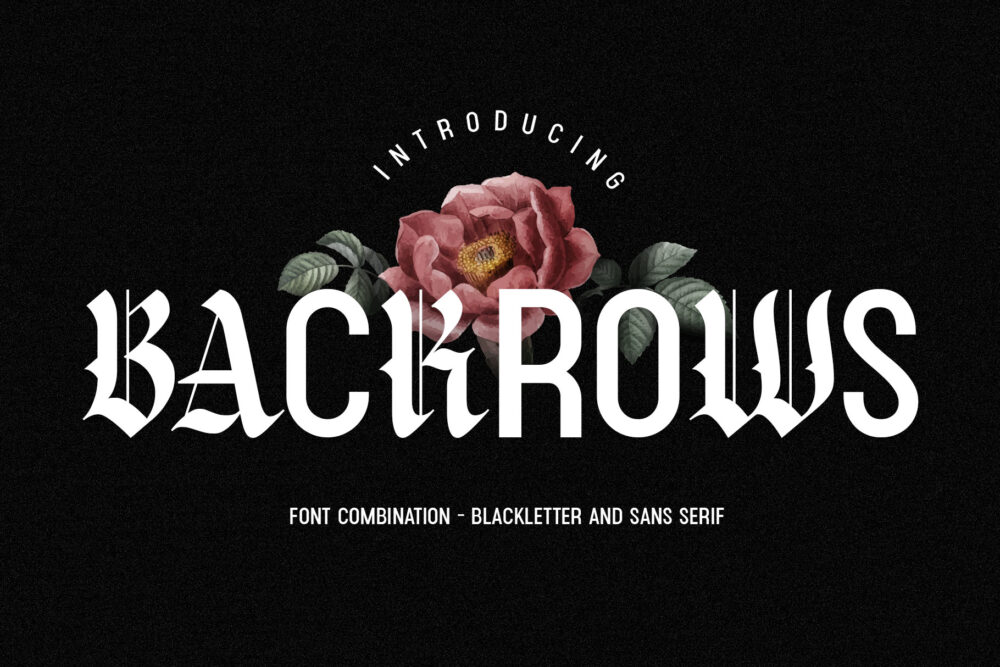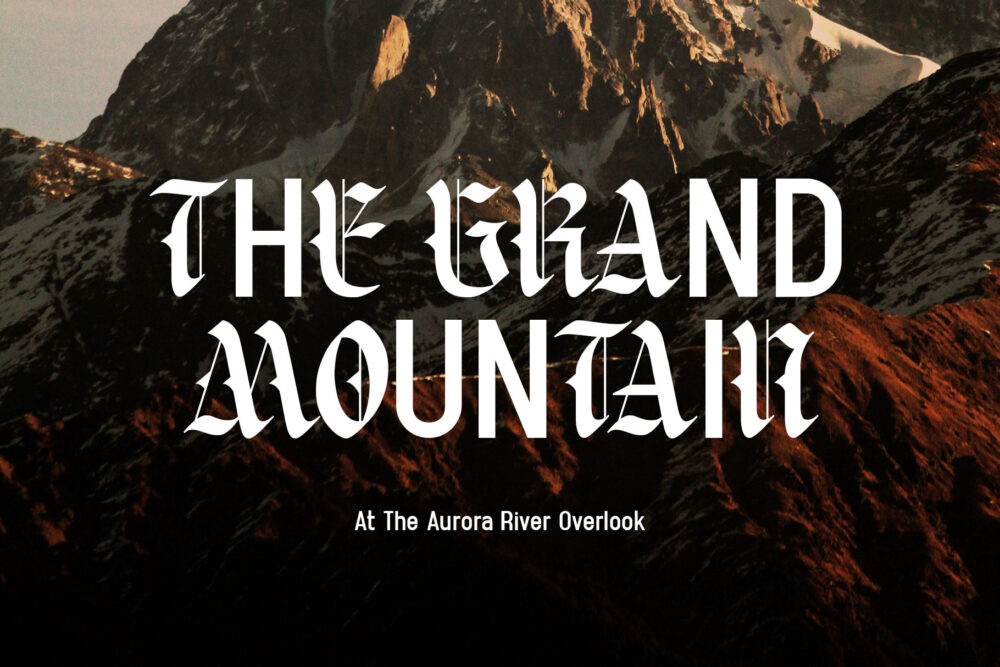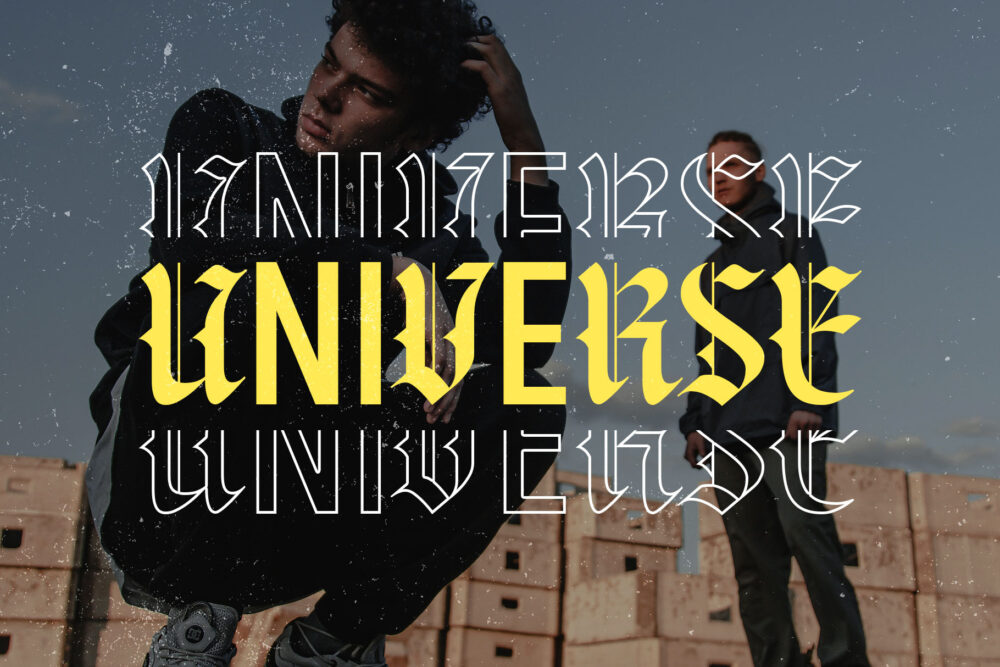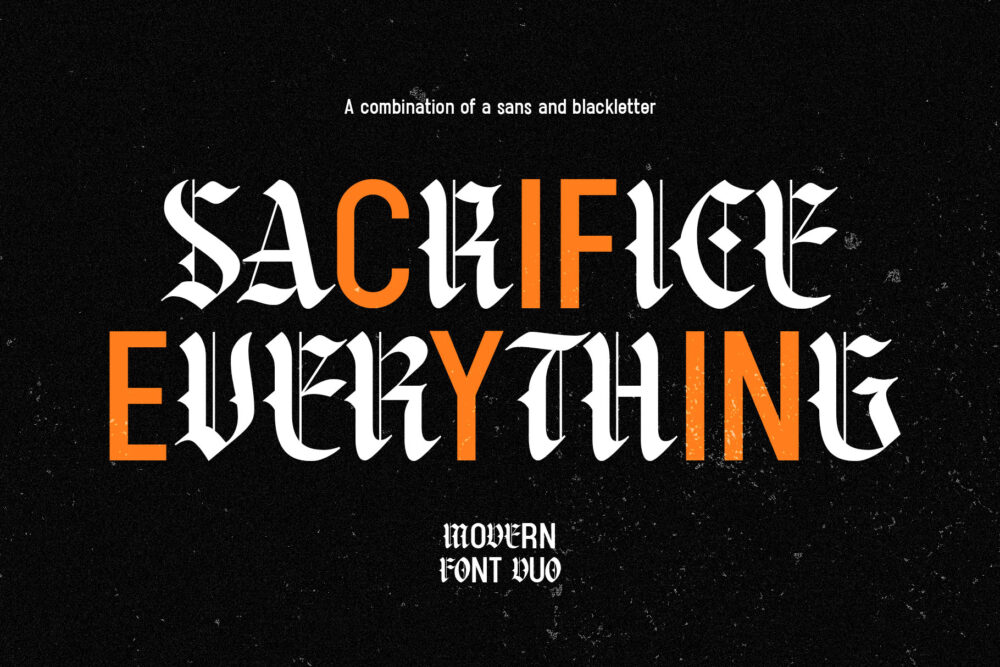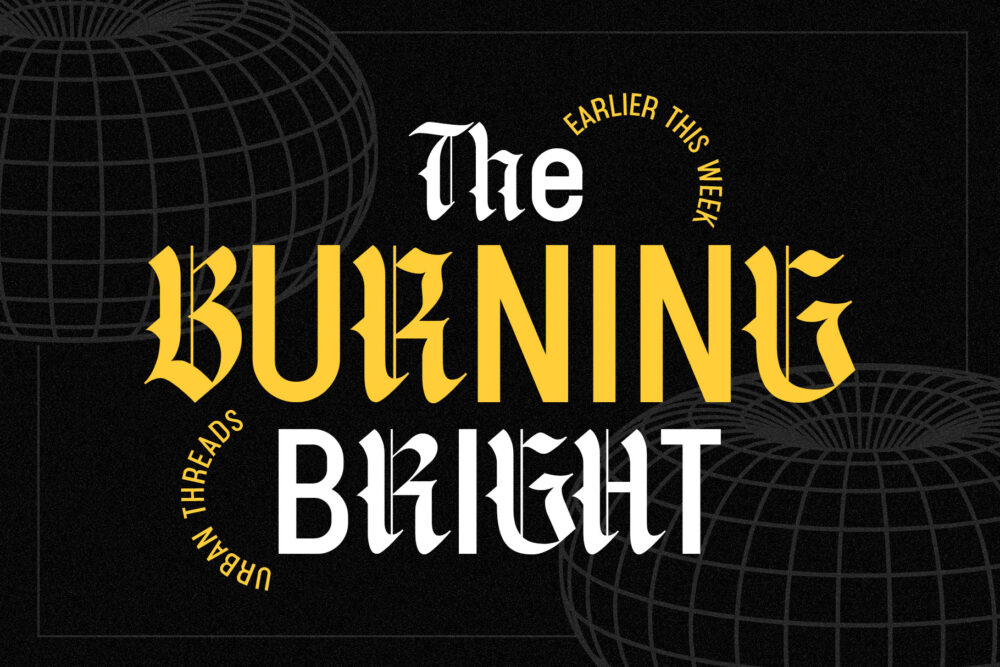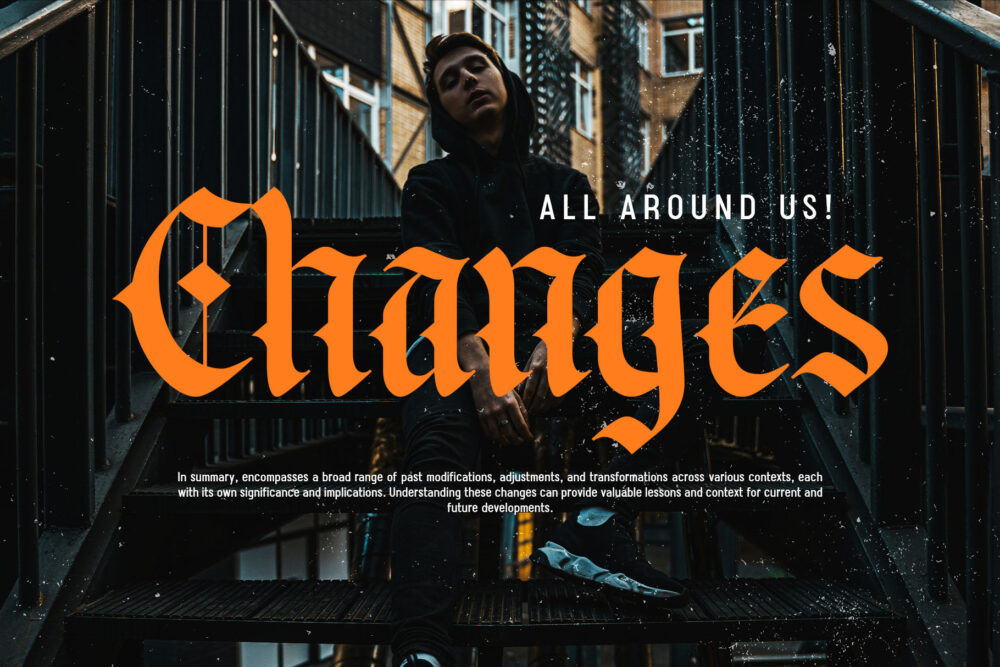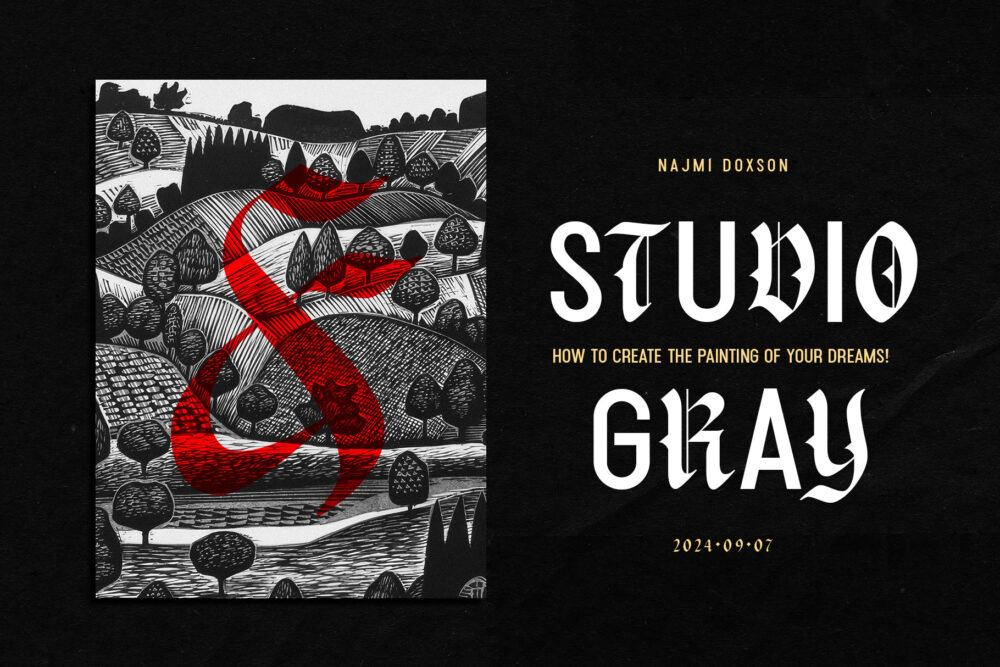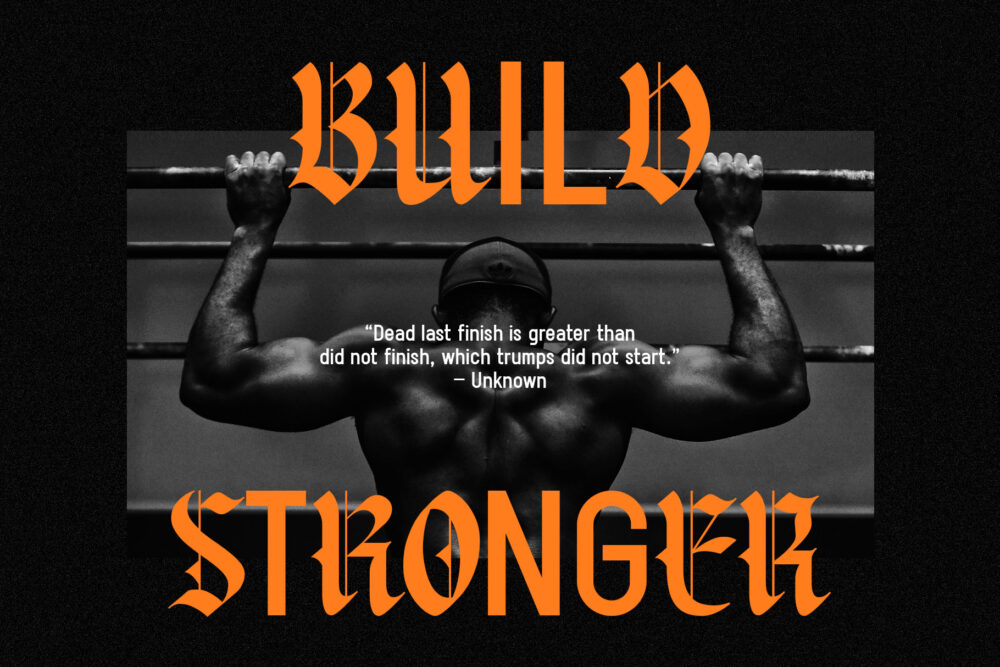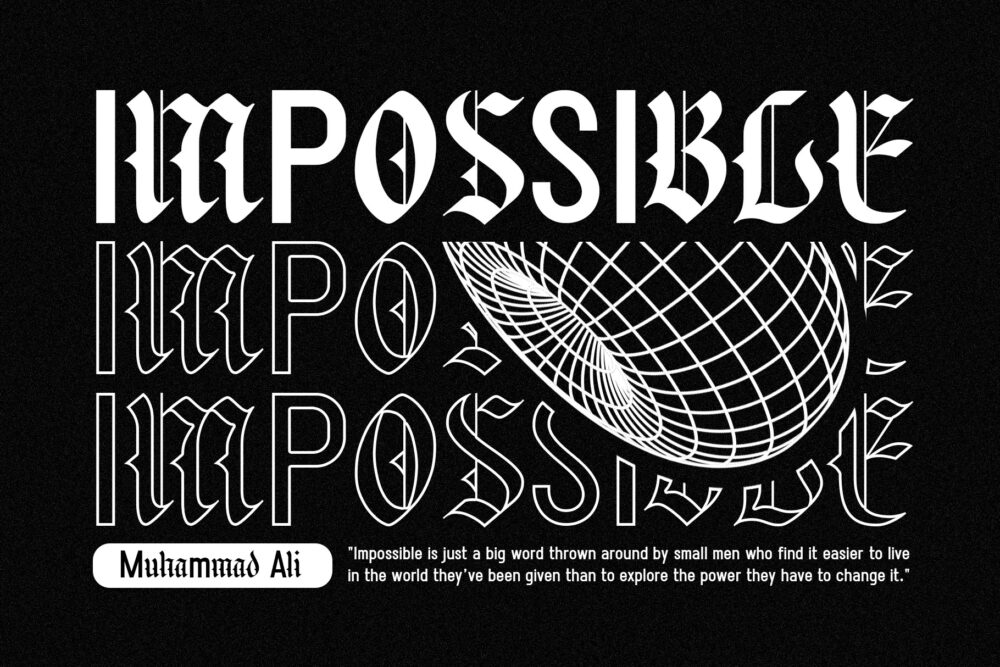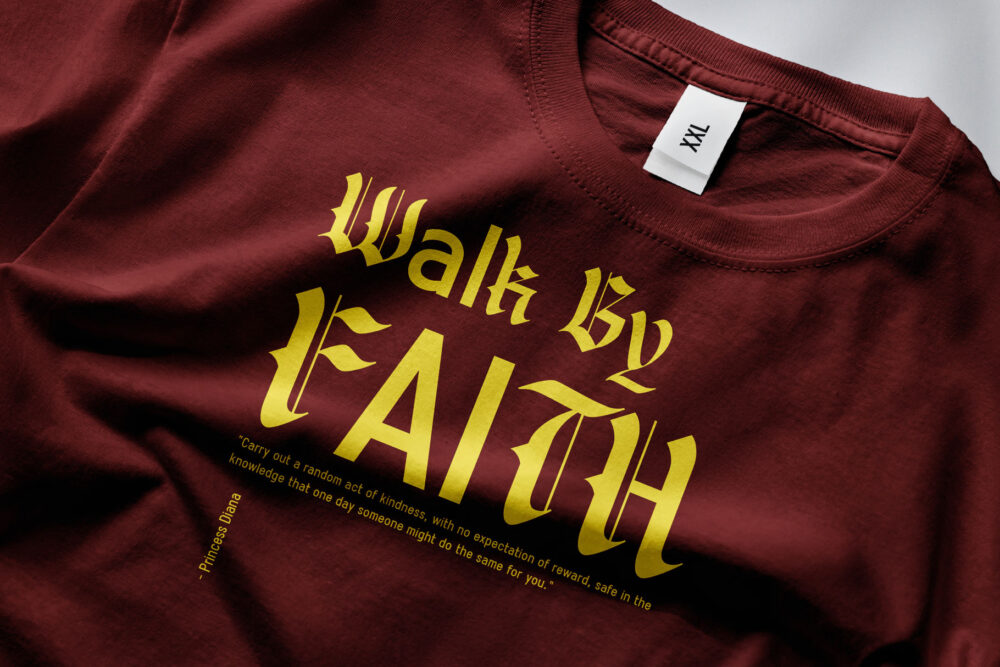
Introducing Backrows, a captivating blend of blackletter and sans serif fonts. This unique combination offers an elegant and modern aesthetic, allowing for versatile design possibilities. With additional alternate characters, you can mix and match to create stunning typography.
The sans serif elements soften the boldness of the blackletter, while still conveying sophistication. Together, these fonts bring a classy and ornate feel, perfect for a variety of applications. Ideal for titles, headlines, labels, branding, book covers, social media graphics, magazines, illustrations, badges, fashion, and urban design.
Font Features:
– Uppercase and lowercase letters
– Numbers and punctuation
– Symbols
– Stylistic alternates
– Multilingual support
Note: for optimal results, you may need to adjust letter spacing and kerning when combining the blackletter and sans serif elements.